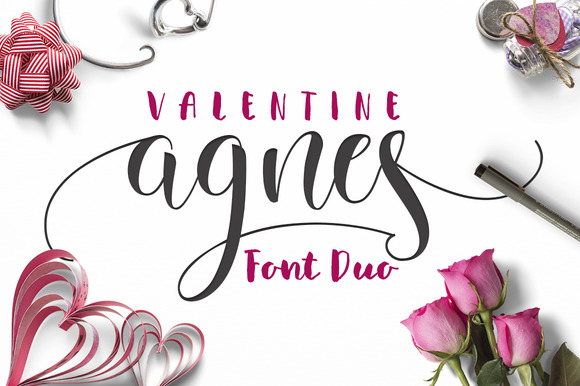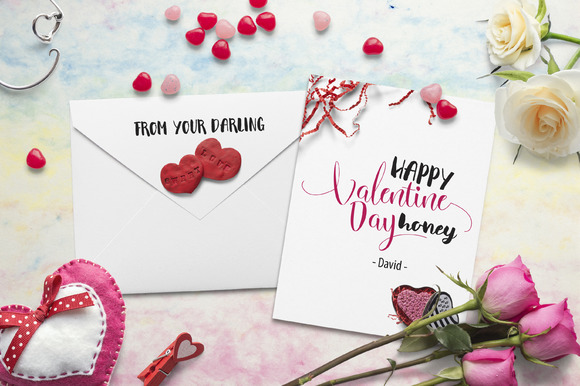
Valentine Agnes Font
db-ku.com - Script & Handwritten -- The Valentine Agnes Font Duo are 2 beautiful elegant handwritten fonts that are very complimentary and allow for creating stunning designs.